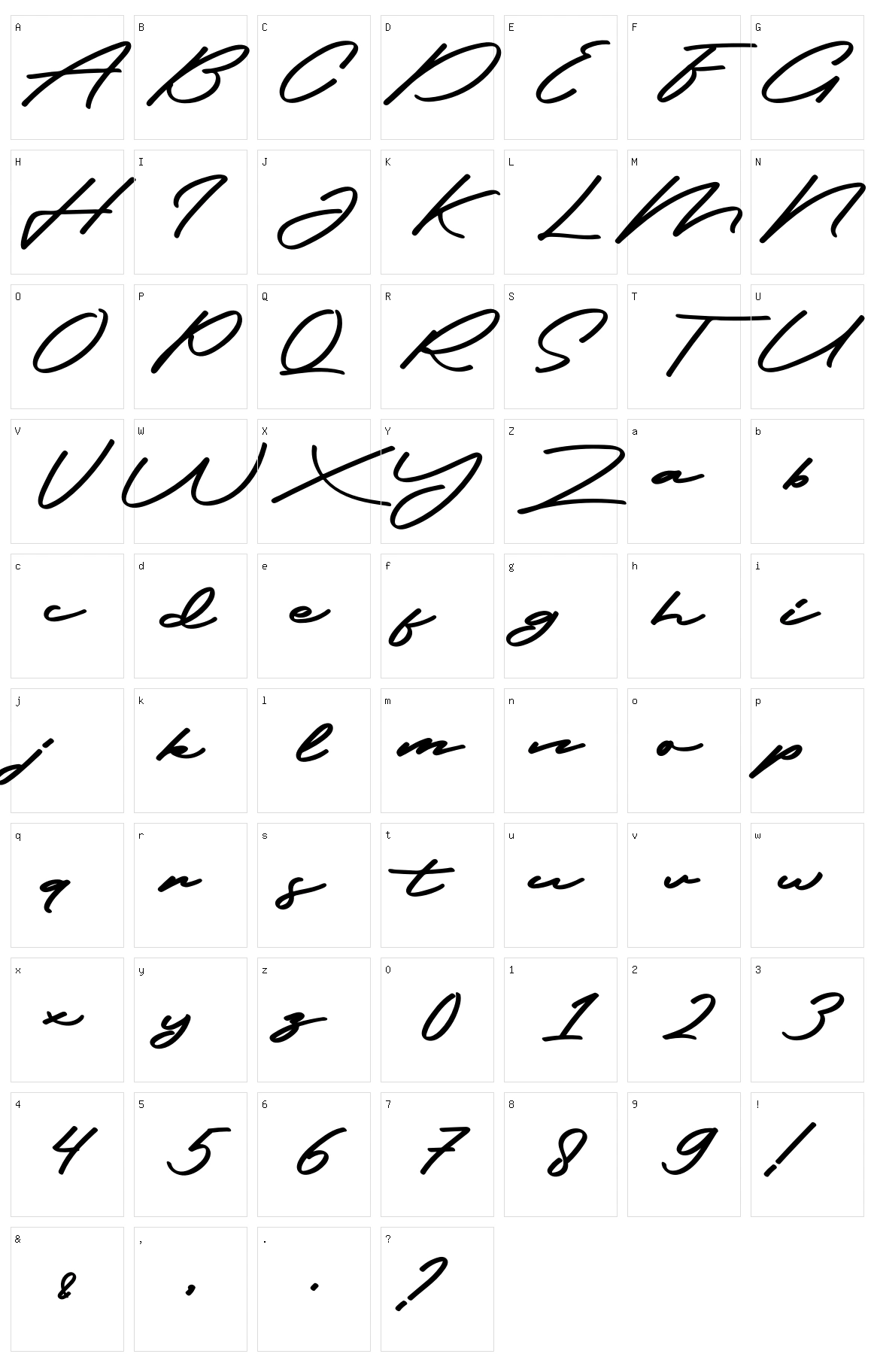
The free font Frederick is carefully designed by alphArtype, showcasing a thoughtful balance of creativity and usability and falls under the Script font style. When you download the ZIP file, it contains only 41.63 KB of font files, making it lightweight and quick to download. Please review the license details below to understand permitted usage and distribution rights. If license information is not available, we recommend using this font for personal projects only or contacting the author directly for commercial usage permissions.